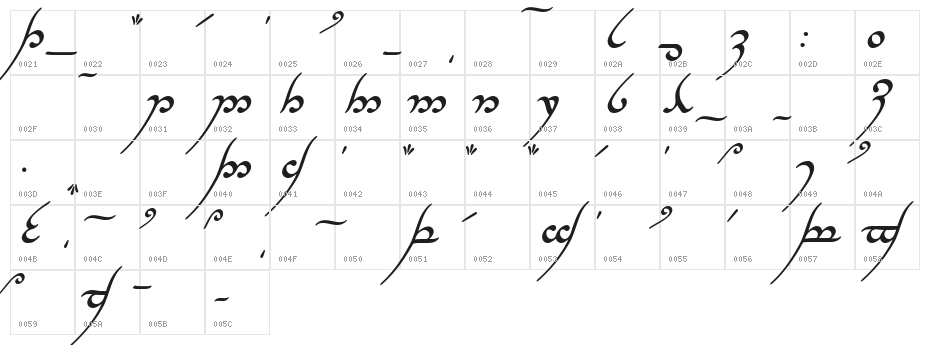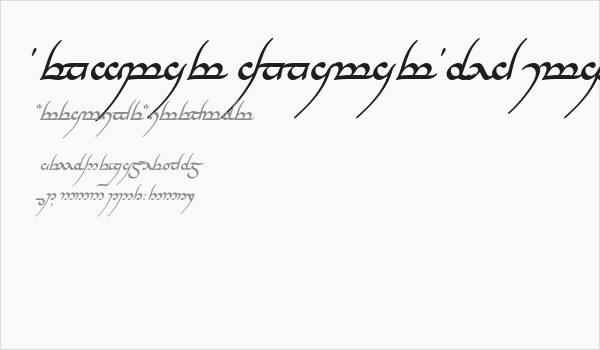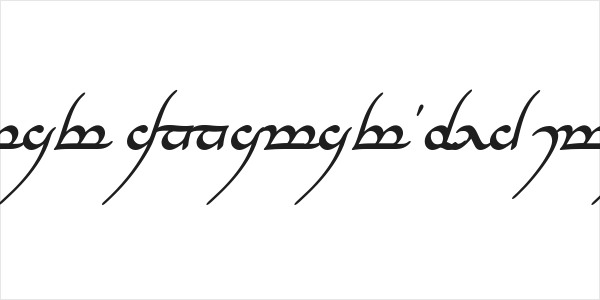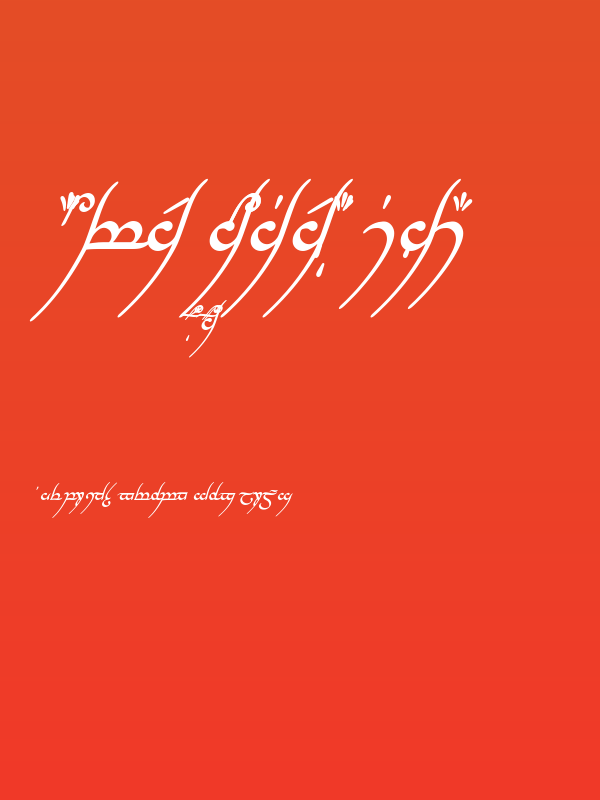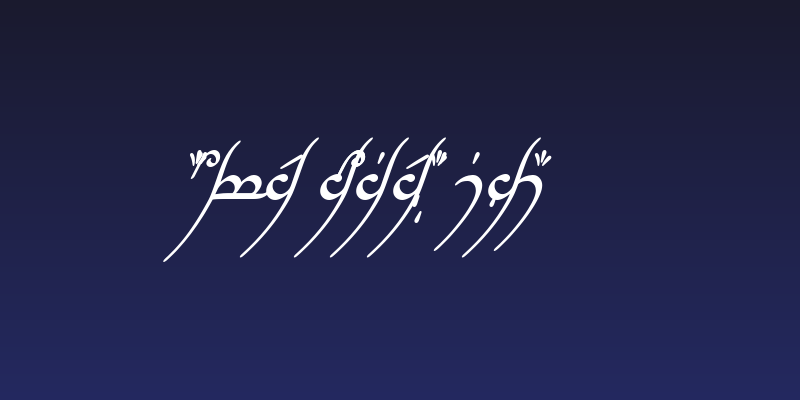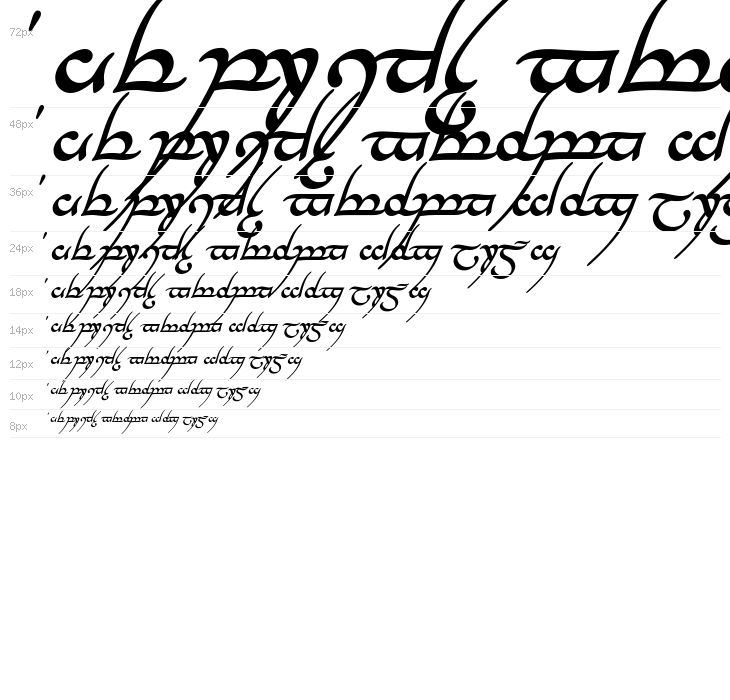
Tengwar Annatar Bold Italic Font
Tengwar Annatar Bold Italic Description
This font is a decorative script inspired by the fictional Elvish script from J.R.R. Tolkien's Middle-earth. It features intricate, flowing lines and elegant curves that mimic the calligraphic style of ancient scripts. The characters are ornate, with elaborate swirls and embellishments that give it a mystical and otherworldly appearance. The font is designed to evoke a sense of fantasy and magic, making it ideal for projects that require a touch of whimsy and imagination. Its unique style is both captivating and enchanting, perfect for creating a sense of wonder and mystery.
| Use Case | Logos, Titles, Decorative text |
| Proposed Projects | Ideal for fantasy-themed projects, book covers, movie posters, and role-playing games. |